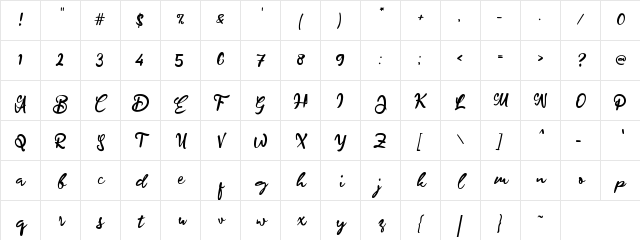
a Ahead Lettering Regular
Designer: Wahyu Eka Prasetya
Design Context for a Ahead Lettering
a Ahead Lettering is a composed and adaptable typeface that performs quietly and consistently across a wide range of design contexts.